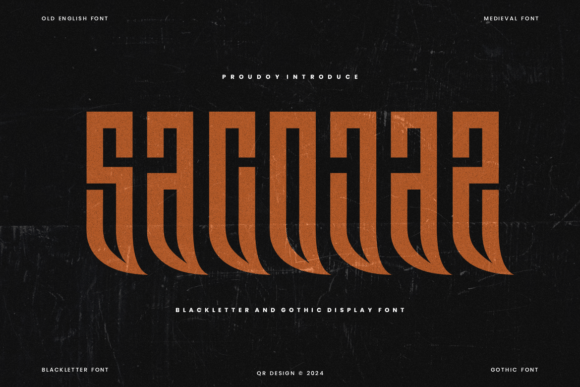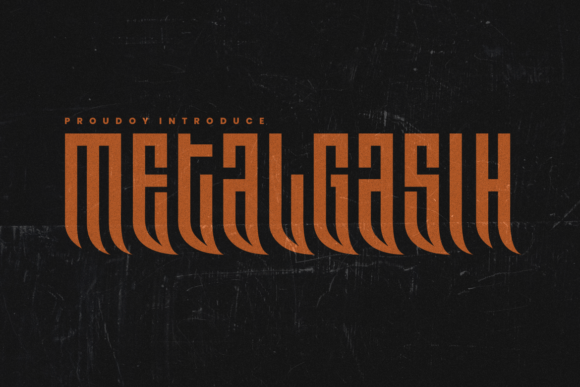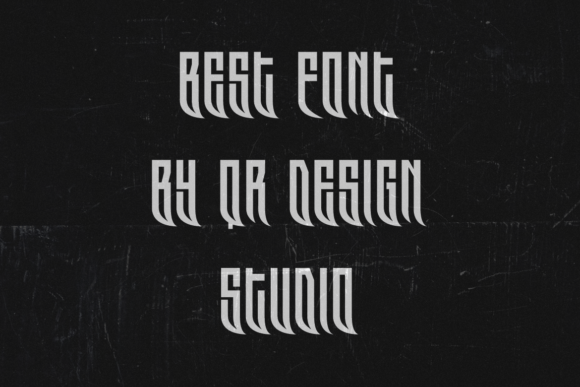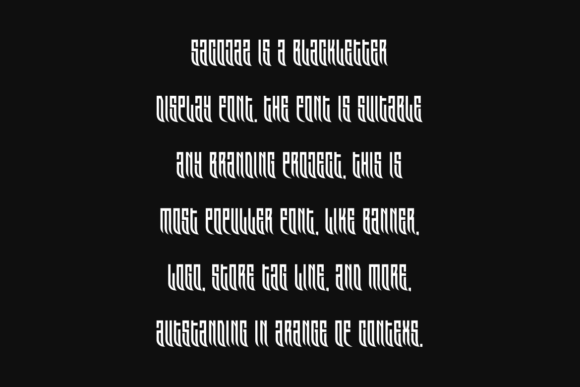
Sacojaz Font: Bold Blackletter for Unique Logo Design
About the Sacojaz Font
The Sacojaz Font is here to transform your projects with its distinctive character and style. Sacojaz is a bold blackletter and gothic display font that fuses medieval strength with modern design. With razor-sharp edges and a commanding presence, it’s perfect for metal bands, dark apparel, tattoo branding, and anything that channels an old-world edge with contemporary flair.
Sacojaz excels in headlines, logos, and short impactful text for projects needing a strong, rebellious aesthetic. Its bold forms make it ideal for posters, album art, and branding for businesses in the music, fashion (especially streetwear), or gaming industries. Avoid using it for body copy or UI elements; its weight and complexity are unsuitable for extended reading.
Pairing Sacojaz with a clean sans-serif like Montserrat or a more geometric font like Futura provides a striking contrast, balancing its aggressive nature. For a slightly softer feel, consider a neutral serif like Lora, which will add readability without sacrificing the overall impact.
The font projects a bold, assertive personality, conveying power and a touch of darkness. Its medieval influences give it a unique edge, making it perfect for brands aiming for a distinctive, memorable image.